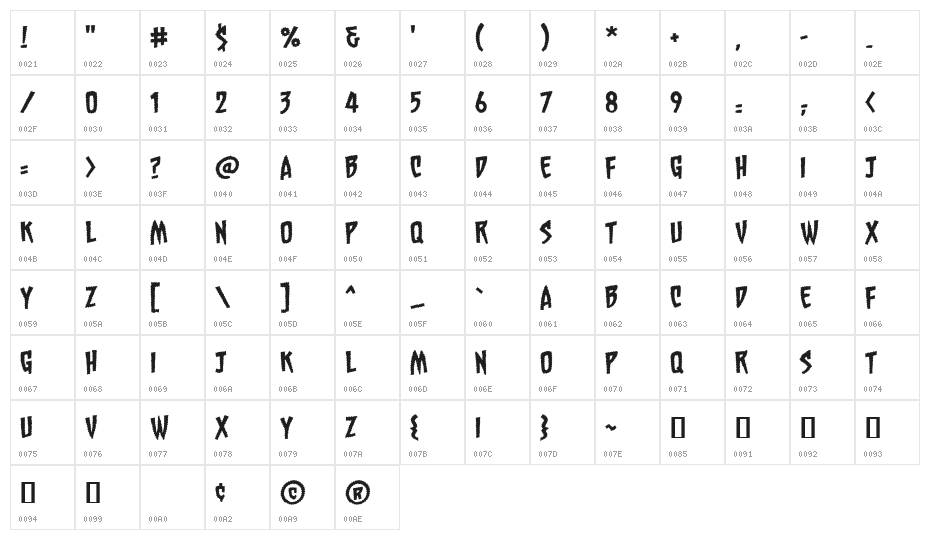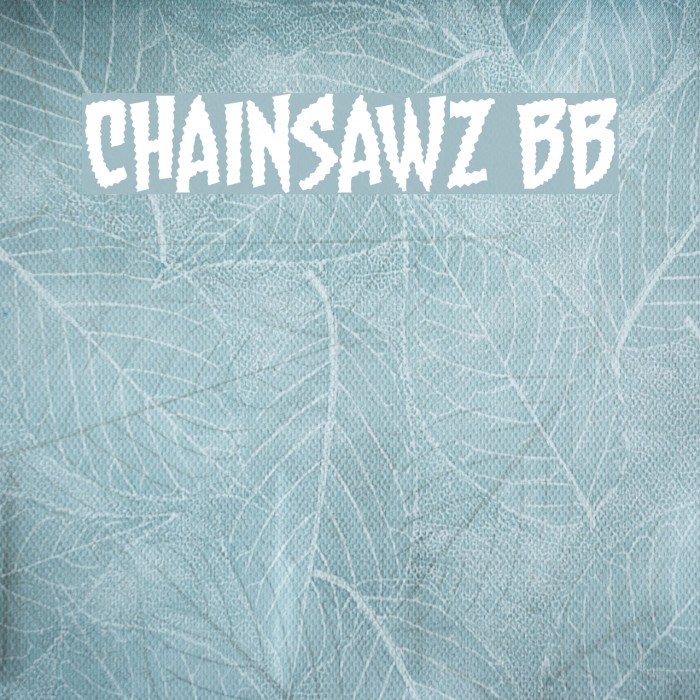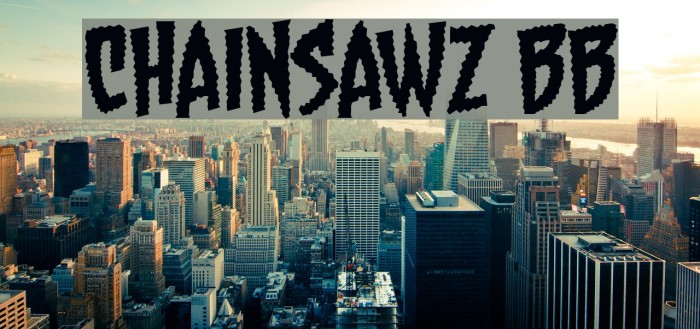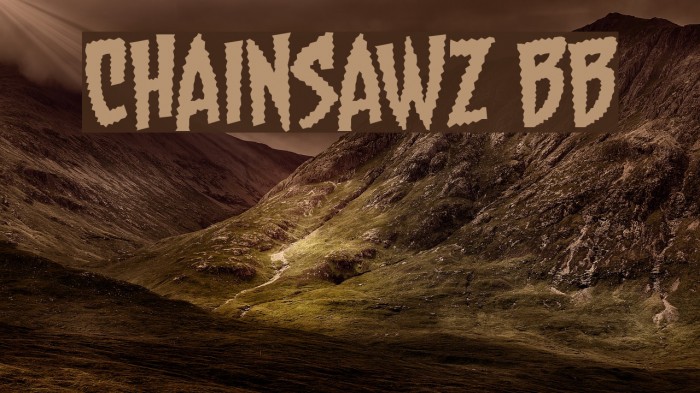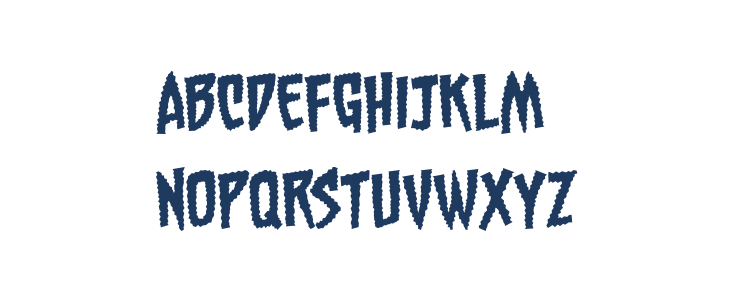
Chainsawz BB Font
Chainsawz BB Description
This font features a jagged, edgy design reminiscent of chainsaw blades, giving it a rugged and intense appearance. The uppercase and lowercase letters maintain a consistent style, with sharp, angular edges and a bold presence. Numbers and special characters follow the same aesthetic, ensuring a cohesive look across all text. The font's unique style makes it stand out, ideal for projects that require a bold and daring visual impact. Its distinct appearance is both eye-catching and memorable, suitable for creative and unconventional design needs.
| Proposed Projects | Ideal for horror-themed posters, edgy branding, Halloween events, or any project needing a bold, unconventional look. |